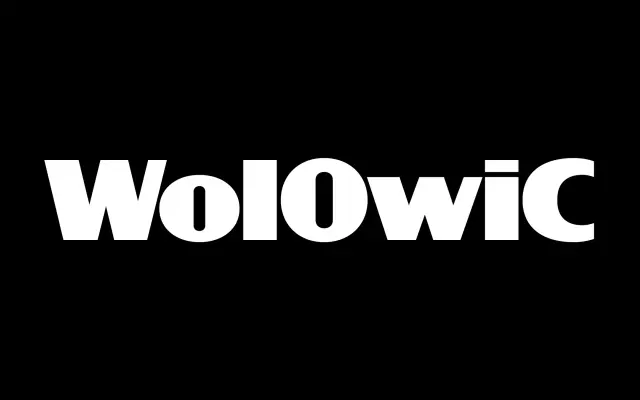
Polka
A single-weight display grotesque reviving a 1972 type specimen by Estonian typographer Villu Toots, pushed even bolder than its source material.
Designed by Eliott Grunewald, Polka traces its lineage through Villu Toots's 1972 'Kirjakunsti abc' back to Eugene Nerdinger's grotesque, resulting in a high-contrast, round letterform with deliberate irregularities in weight distribution. The x-height is intentionally large and the spacing tight, making compact, bold text blocks the intended use. Available in a single weight as OTF, TTF, WOFF and WOFF2, it covers Latin Extended with support for a wide range of European languages.
A high-contrast, bold display grotesque with round, bubbly letterforms derived from a 1972 Estonian type specimen; the single heavy weight and decorative character place it firmly in the display category rather than a workhorse grotesque.